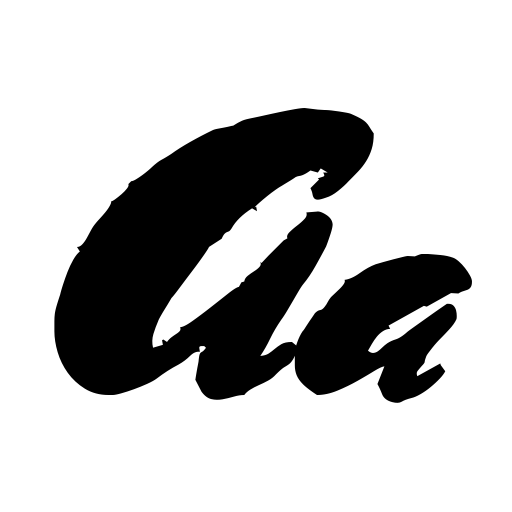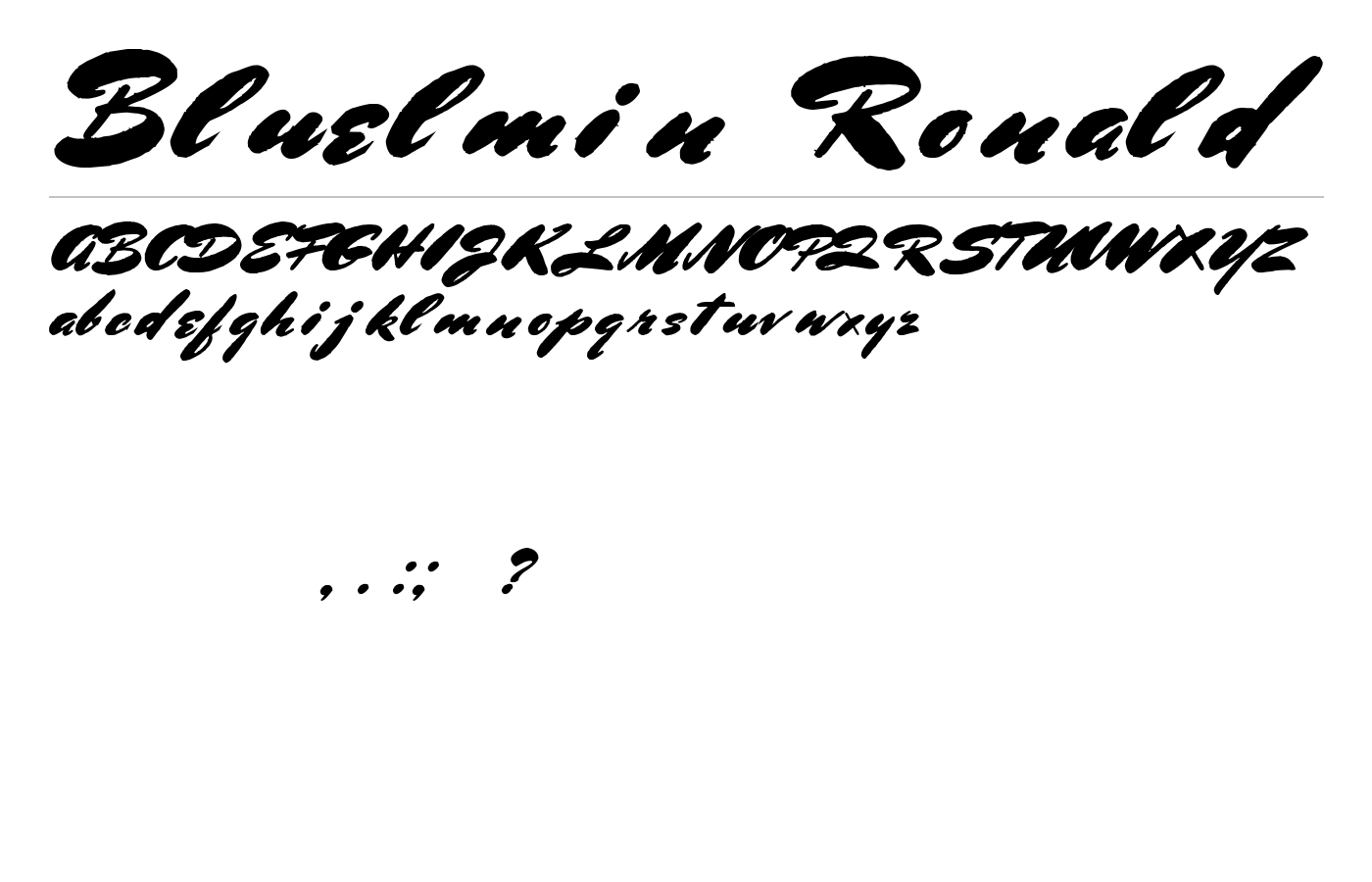
Bluelmin Ronald is a bold, expressive script font with a brushstroke feel that conveys energy and creativity. Its thick, dynamic strokes and slightly condensed forms make it ideal for eye-catching headlines, logos, and branding projects that aim to communicate personality and artistic flair. This font works well in contexts where a strong, informal, yet stylish impression is desired.
Bluelmin Ronald Font